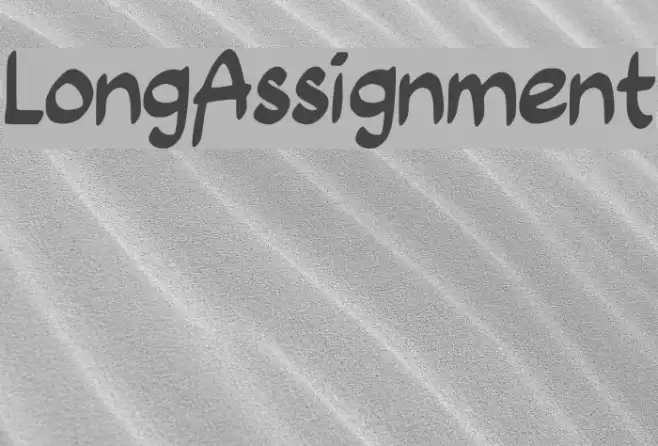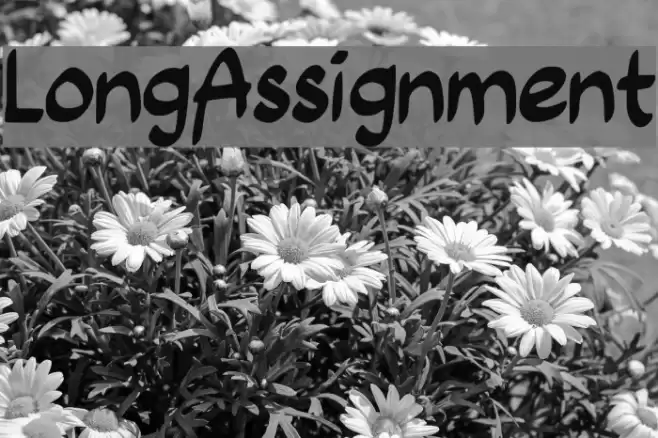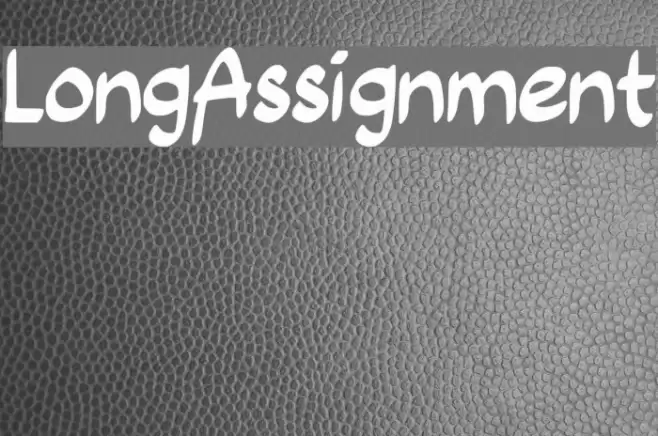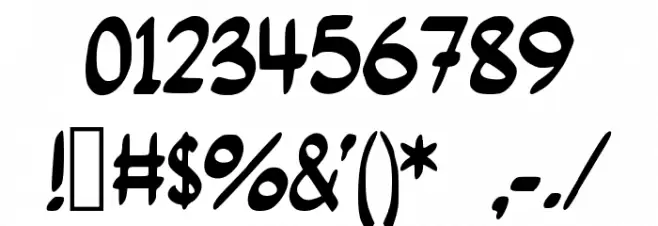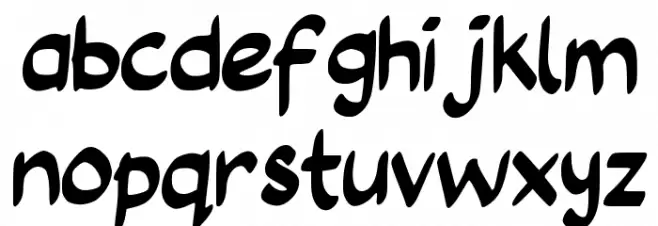
Long_Assignment Font
Long_Assignment Description
This font features a playful and dynamic style, characterized by its bold and rounded letterforms. The strokes are thick and consistent, giving it a strong presence. The letters have a slight slant, adding a sense of movement and energy. The uppercase and lowercase letters maintain a uniform appearance, while the numbers and special characters complement the overall design. The font's informal and friendly look makes it suitable for creative and casual applications. Its distinctiveness ensures readability while adding a unique flair to any project.
A bold, playful font with rounded, dynamic letterforms from Comic fonts.
- Overall Style: Playful, Energetic